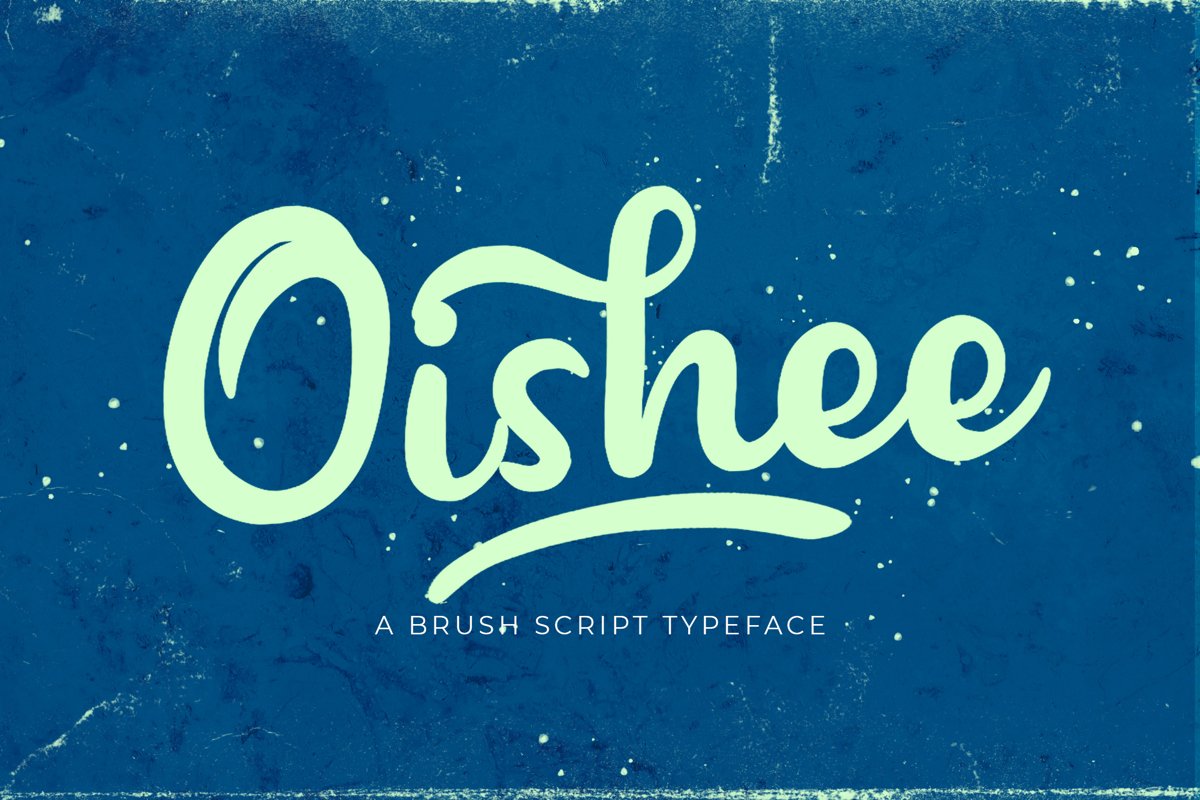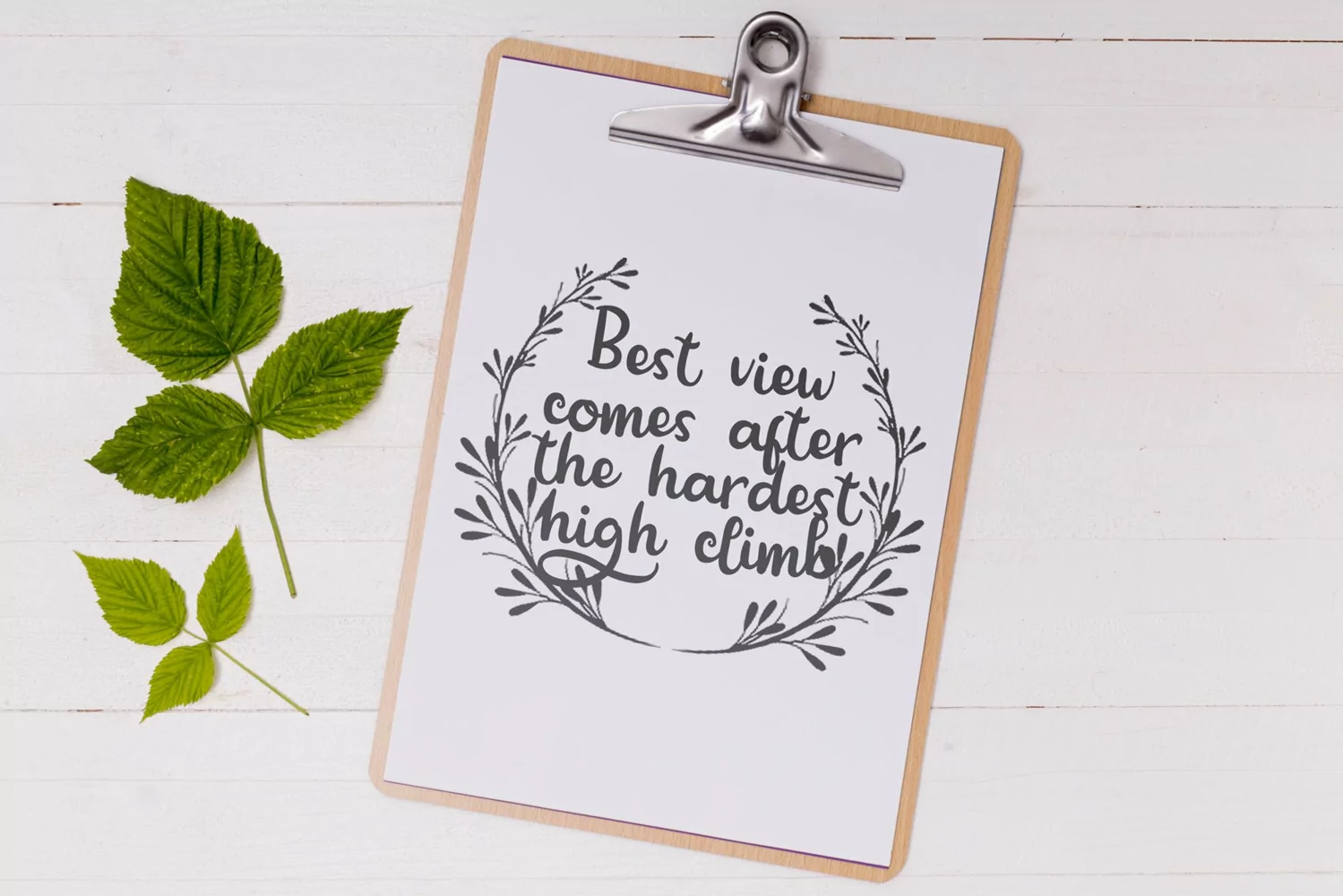
Oishee is a brush script typeface, Perfect for display, quotes, poster, packaging, merchandise, florist needs, business card, print, t-shirt, mug, pin, logo, logotype, and many more.